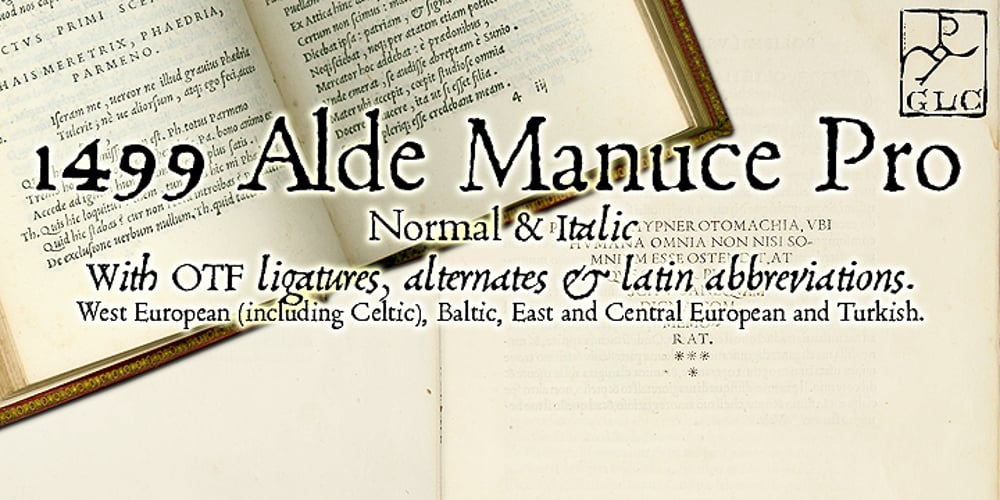
1499 Alde Manuce Pro Font Family was designed by Gilles Le Corre and published by GLC. 1499 Alde Manuce Pro contains 2 styles and family package options. This family was inspired by the beautiful roman font used by Aldus Manutius in Venice (1499) to print for the first time Hypnerotomachia Poliphili…, the well known book attributed to Francesco Colonna. Francesco Griffo was the punchcutter. The present font contains all of the specific latin abbreviations and other ligatures used in the original. The Italic style, carved by Francesco Colonna, the so called “Aldine” style, was inspired from various documents, all printed with this first Italic font. We offer the complete set of ligatures (about 60) we have been able to find, contained in the original font. In the two styles, we have made differences between I and J, V and U, to make easier a modern use. Added are the accented characters and a few others not in use in this early period of printing. The Italic style may be used as a complement to our 1470 Jenson Latin. The font contains all characters for West European (including Celtic), Baltic, East and Central European and Turkish language.